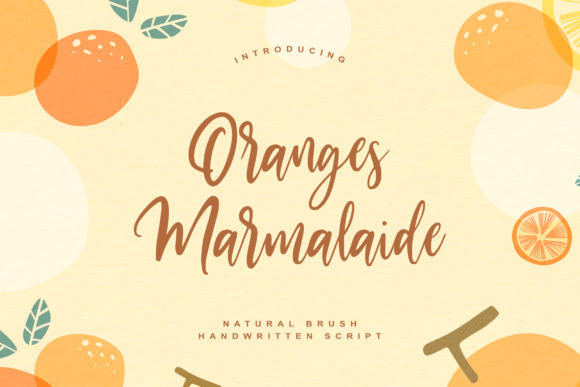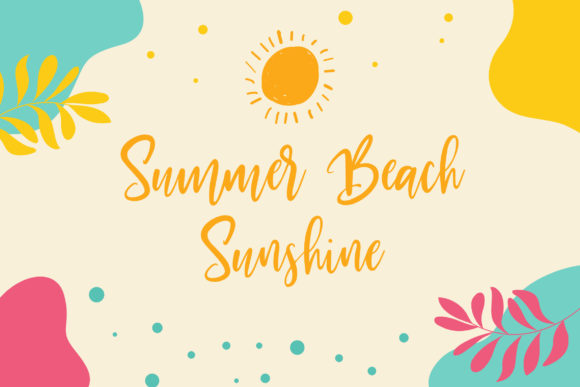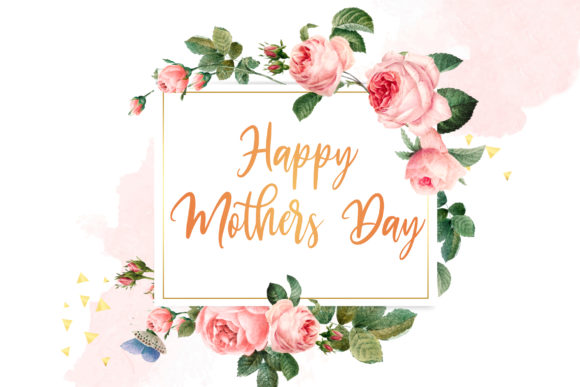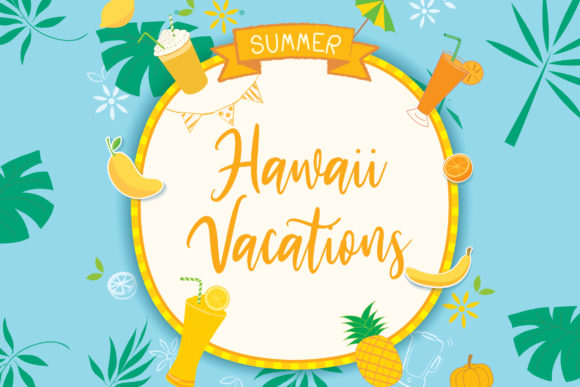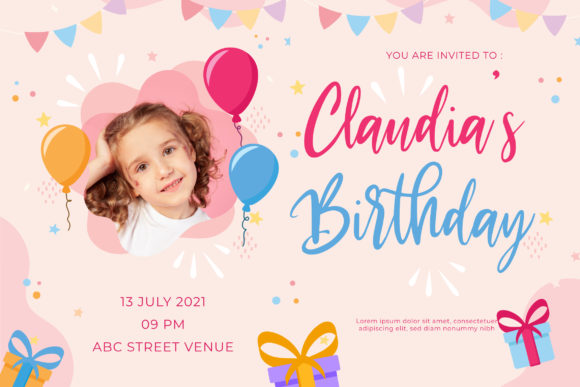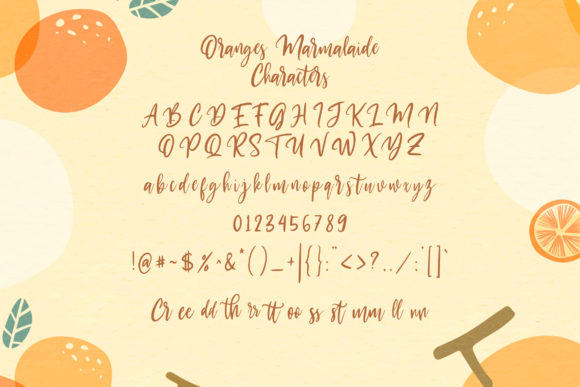
Oranges Marmalaide Font
Oranges Marmalaide is a lovely and timeless handwritten font. It is the best choice for creating eye catching logos, branding and quotes. Every letter has a unique and beautiful touch, which will make your design come alive!